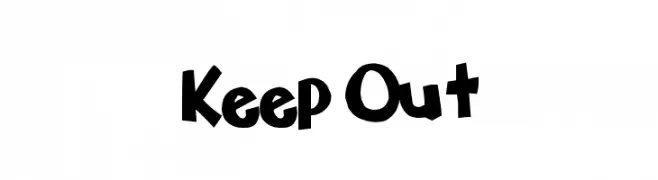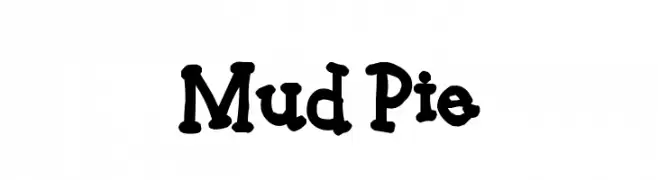
A whimsical font with characters encased in cartoon bear figures, perfect for playful designs.
A playful font with characters inside friendly ghost shapes, perfect for whimsical designs.
A playful, hand-drawn font with bold, rounded characters and a whimsical style.
A dotted, educational font ideal for handwriting practice.
A playful, bold font with rounded, bouncy characters and whimsical elements.
A playful, hand-drawn font with quirky, uneven lines and a whimsical style.
A playful, bold font with exaggerated curves and angles, perfect for dynamic designs.
A playful, handwritten font with a casual and whimsical style.